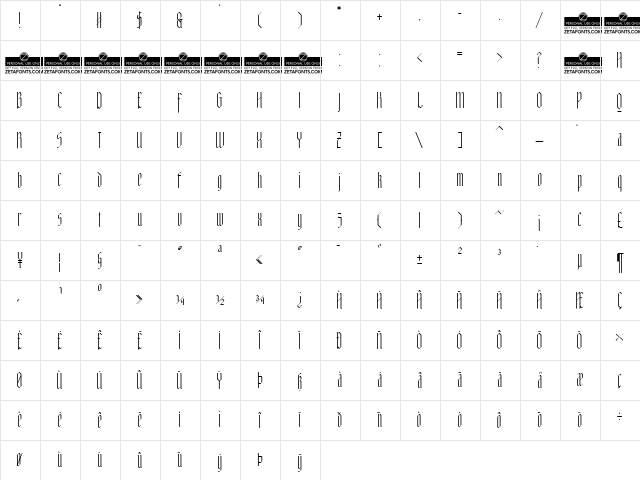
Complete Adlibitum Light glyph index. Displaying only characters natively supported by Adlibitum Light font.
Adlibitum is a composed and adaptable typeface that performs quietly and consistently across a wide range of design contexts. Its slender proportions lend an understated elegance to any composition.